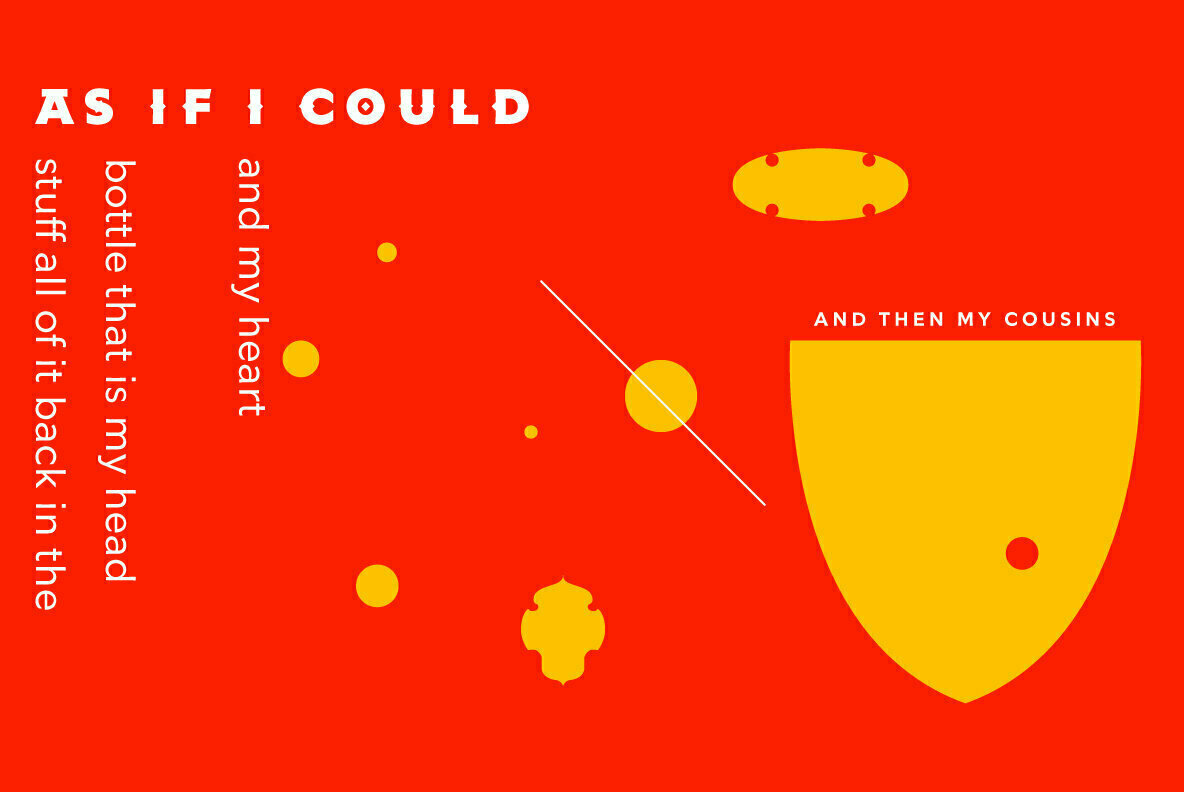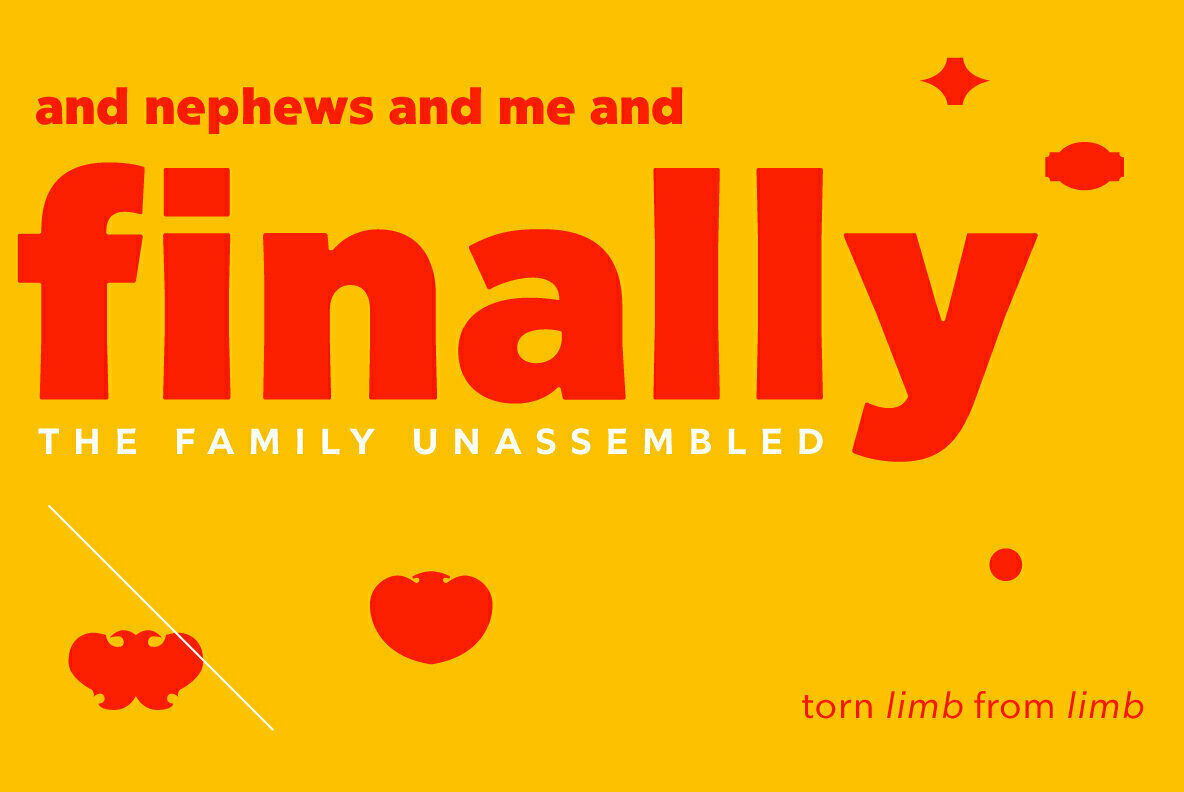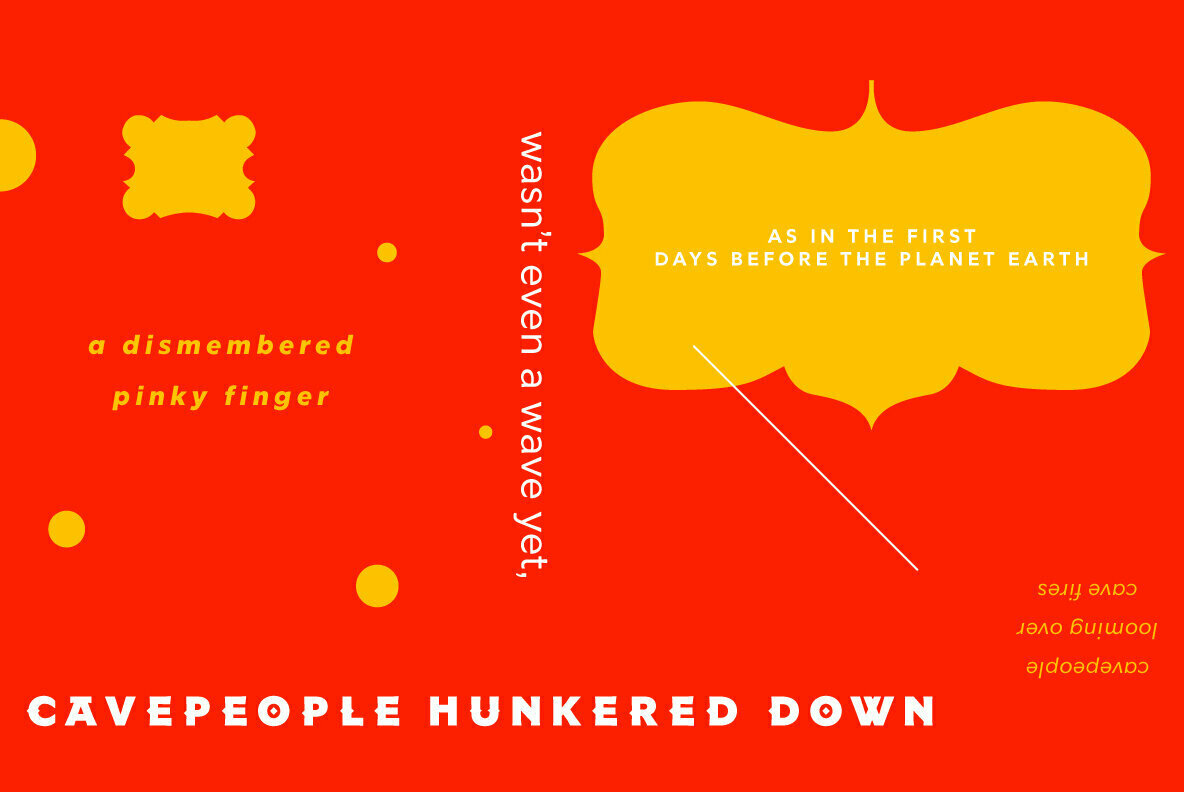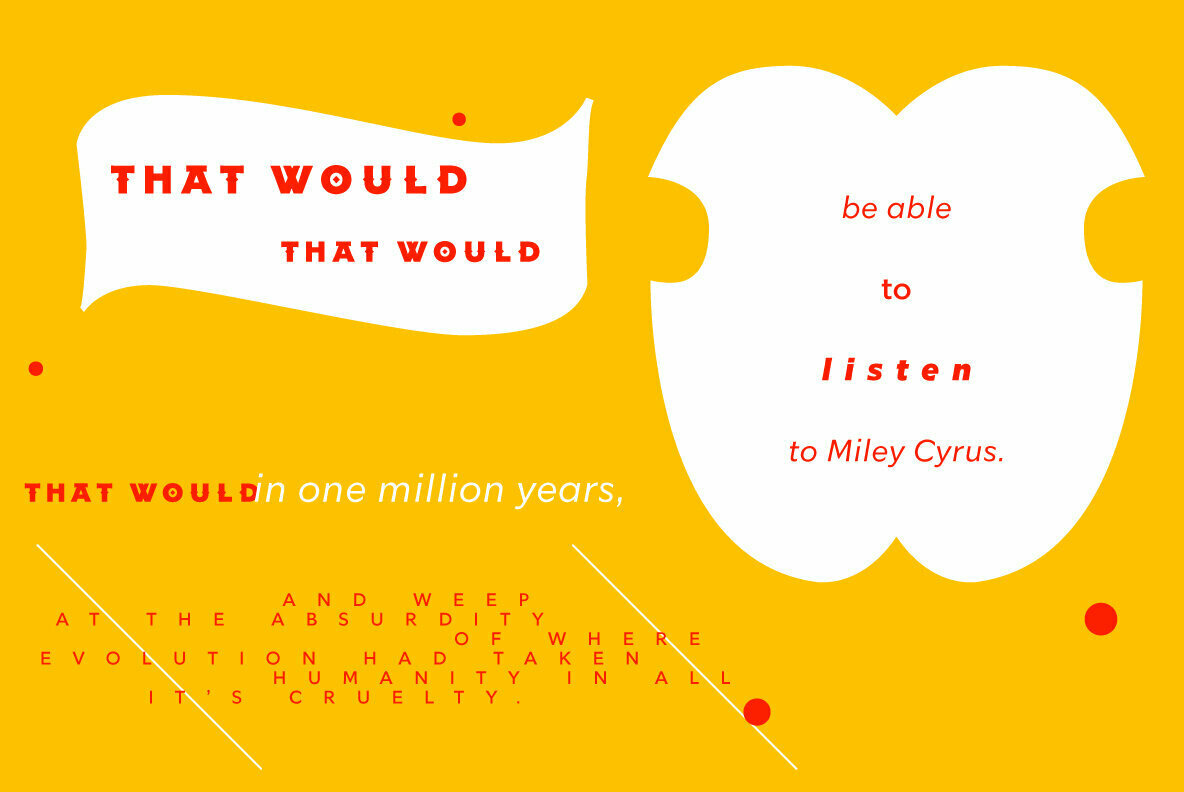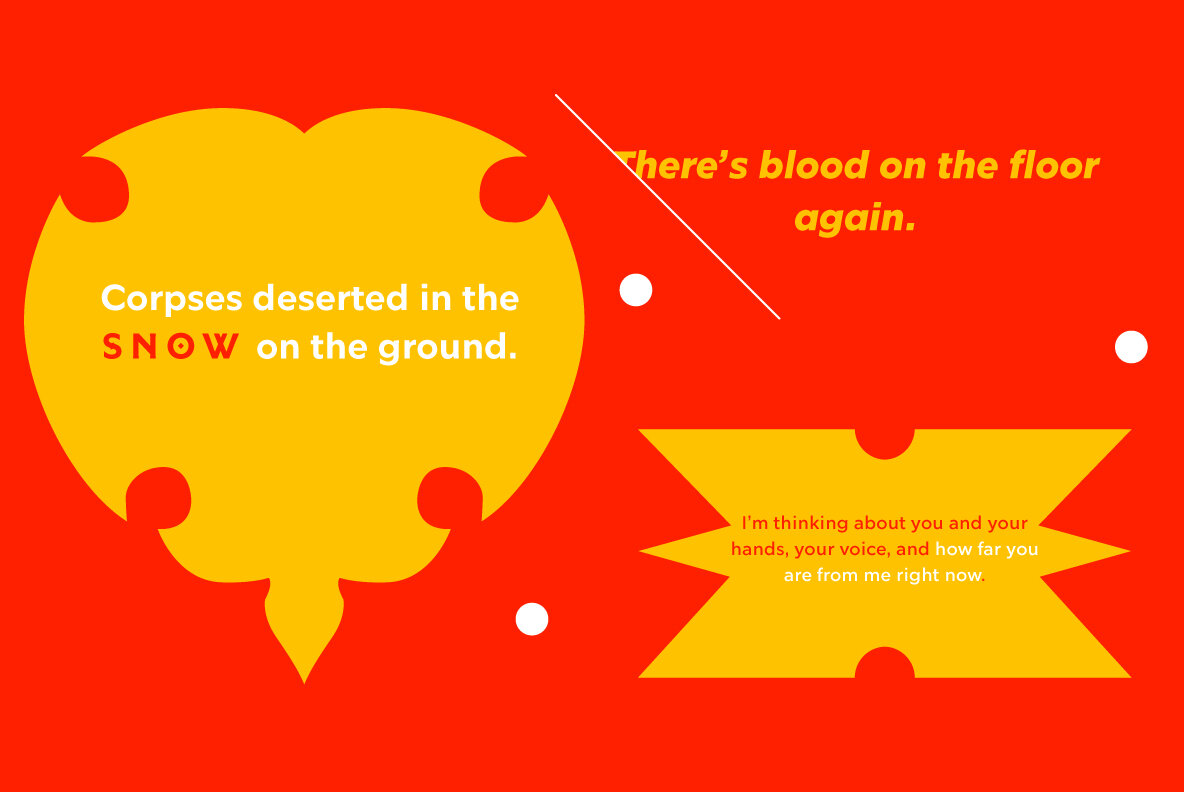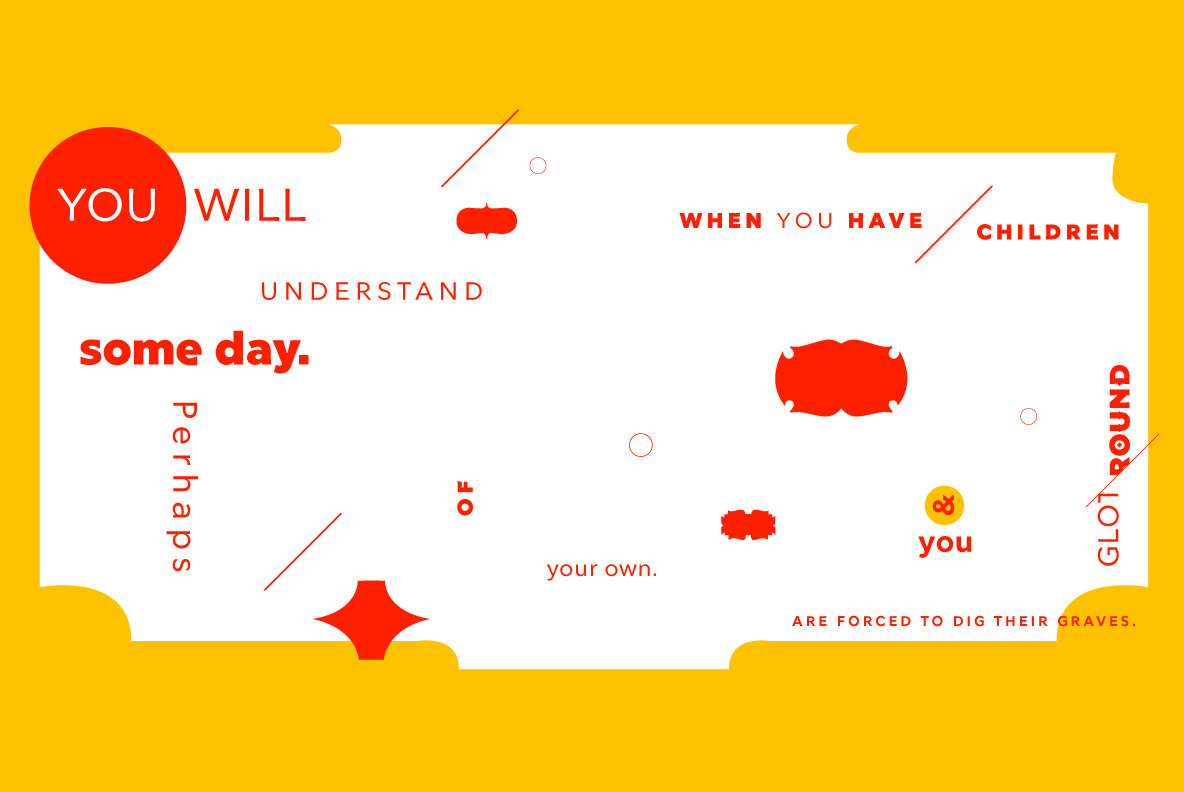
Glot Round Font
Glot Round is a ten-member flared terminal sans serif family of typefaces based on a mix of proportions of Roman square capitals and hyper-readable sans serifs with slightly rounded corners.
Glot Round comes in five weights with matching true italics: Light, Regular, Medium, Bold, and Black. The Glot family has a wide range and is incredibly functional, working well for longer texts as well as display typography.
After designing the house typefaces for a handful of the most predominant multi-player online games out there, we decided that it was time to bring the battlefield to the people.
Glot Round comes armed with ample language support (Central, Eastern, and Western European) and OpenType ornamental spiked alternate characters for when one needs a hint of danger.